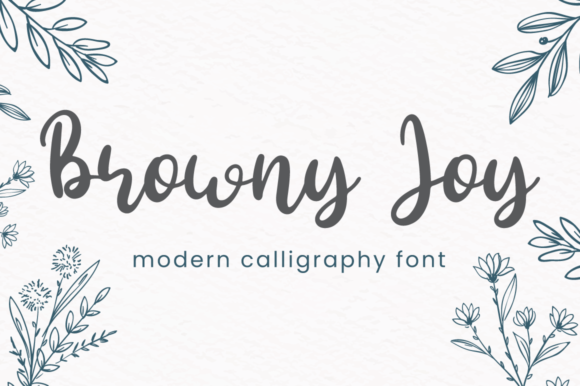
Introducing Browny Joy, the font that exudes elegance and charm, meticulously crafted to leave a lasting impression. This captivating script font effortlessly adds a touch of whimsy and sophistication to your creations, making it the perfect choice for those seeking a timeless and distinctive aesthetic.
Step into a world of limitless creative possibilities with Browny Joy. Its graceful curves and playful flourishes lend an air of sophistication to your designs, whether you're crafting elegant wedding invitations, heartfelt thank-you cards, or eye-catching logos. Each letter dances across the page, exuding a timeless charm that will captivate hearts.
Whether you're a seasoned design professional or just starting your creative journey, Browny Joy is the perfect font to elevate your projects. Its versatility knows no bounds, effortlessly complementing a wide range of design styles. From whimsical greeting cards to sophisticated business cards, Browny Joy seamlessly adapts to your vision, adding a touch of magic to every creation.
Experience the joy of effortless design with Browny Joy. Its carefully crafted characters flow seamlessly, creating a harmonious visual experience that will leave your audience spellbound. Whether you're designing for print or digital, this remarkable font will make your words come alive, capturing attention and stirring emotions.
Embrace the timeless allure of Browny Joy and let your creativity soar. Its delicate strokes and captivating presence will transform your designs into works of art, leaving an unforgettable mark on all who encounter them. Download Browny Joy today and unlock a world of limitless creative possibilities.